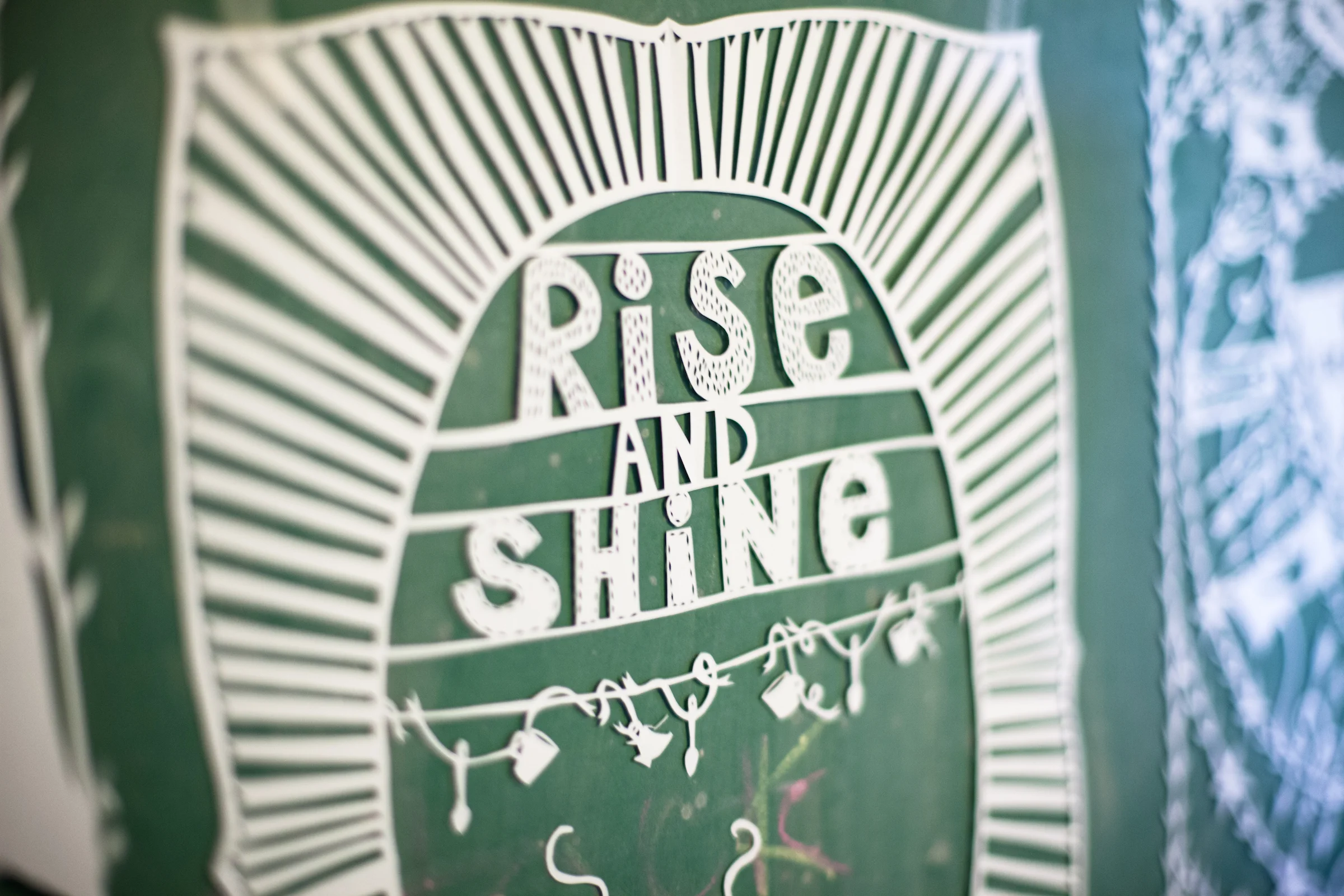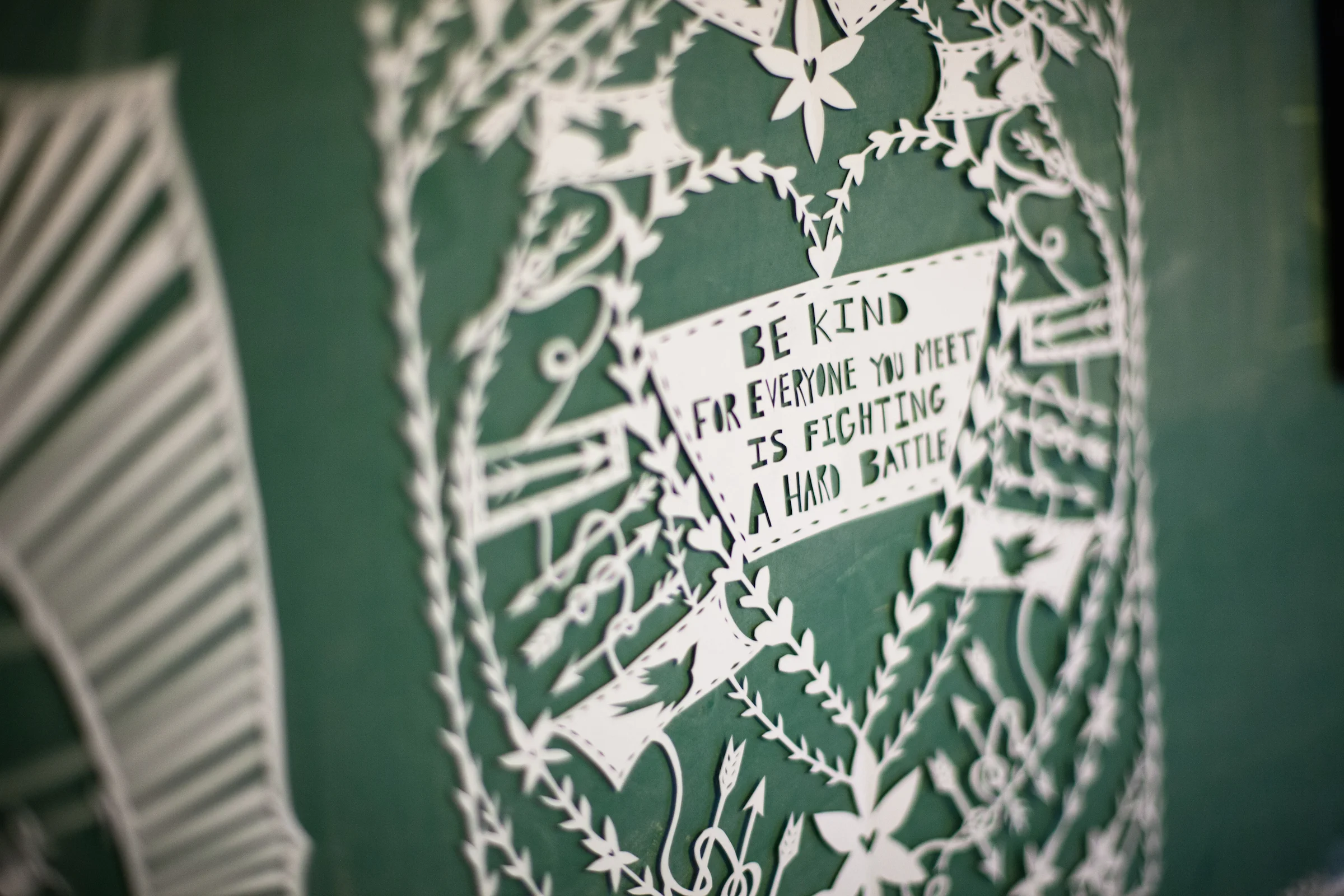
Papercut Lettering Workshop
Join us for a paper cut lettering workshop with paper cut artist and illustrator Annie Howe! We are so excited to have Annie bring this special workshop to us this fall. She will walk you through paper cutting and how to design lettering to be papercut.
In this three hour workshop you will learn the basics about papercutting and how to create your very own custom papercuts. Annie will cover the nitty gritty details of how to use lettering in your papercuts as well as adding in your own special details and elements to your designs. Workshop participants will leave with at least one finished and framed papercut and the resources to keep papercutting at home.